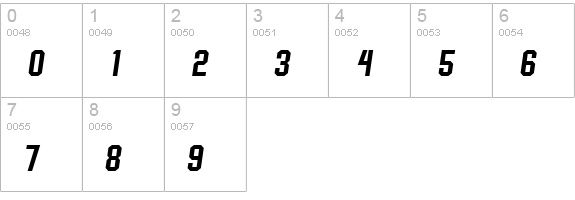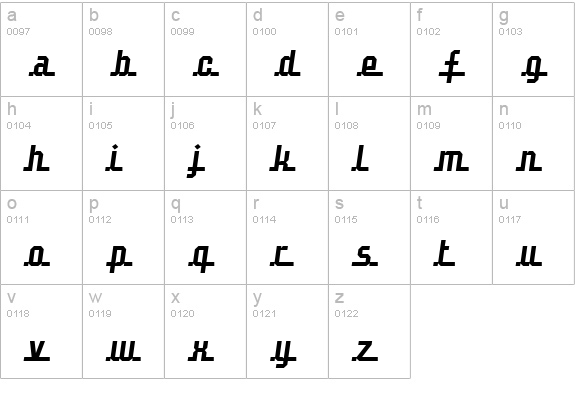
John Doe Font Details
Introducing the exquisite John Doe font, a versatile typeface that effortlessly combines elegance with modernity. With its sleek lines and timeless appeal, John Doe is the perfect choice for a wide range of design projects, from branding to editorial. This font offers a wide variety of weights and styles, allowing you to create striking and professional designs with ease. Best of all, John Doe is completely free to download at FontsMarket.com, making it accessible to designers of all levels. Whether you're working on a personal project or a client's branding, John Doe is sure to elevate your designs to the next level. Download this stunning font today and unleash your creativity with John Doe.